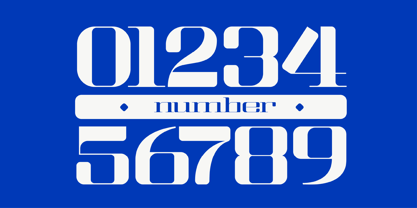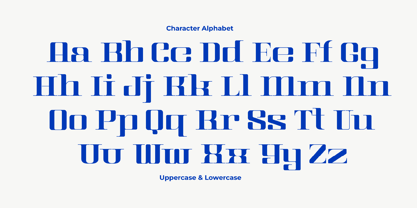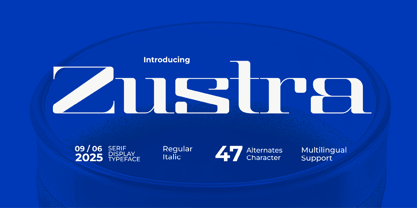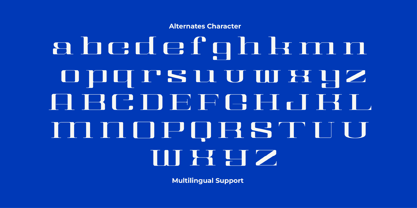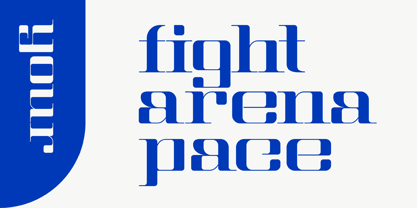
Zustra
The Zustra Font Family was designed by Risma Mulyasari and published by Risma Type. Zustra contains 2 styles and family package options.
# 🔷 Zustra
Category: Serif Display Typeface (Bold Expression Meets Classic Refinement)
Tagline: ✨ Elegant | 🏛️ Bold | 🖋️ Artistic | 📚 Timeless
## 🌟 A Statement Typeface with Classical Roots and Modern Flair
Searching for a font that makes an impression with style and character?
Say hello to Zustra — a high-contrast serif display typeface designed for editorial elegance and visual storytelling. Whether for headlines, branding, or sophisticated layouts, Zustra offers both classic authority and modern edge.
## 🔑 Key Features
* 🏛️ High-contrast serif style with sculpted elegance
* 🌀 Expressive terminals and refined serifs for unique personality
* 🌍 Multilingual support (Latin Extended + Smart Diacritics)
* 🖨️ Print-ready with detailed kerning and optical balance
## 🎯 Perfect For
* 🗞️ Editorial titles & magazine spreads
* 🧵 Fashion campaigns & luxury branding
* 🖼️ Posters, album covers, and creative direction
* 📝 High-impact quotes & stylized typography
* 📖 Book covers & storytelling layouts
> Zustra is where classical beauty meets modern display design — a serif that speaks with grace and conviction.